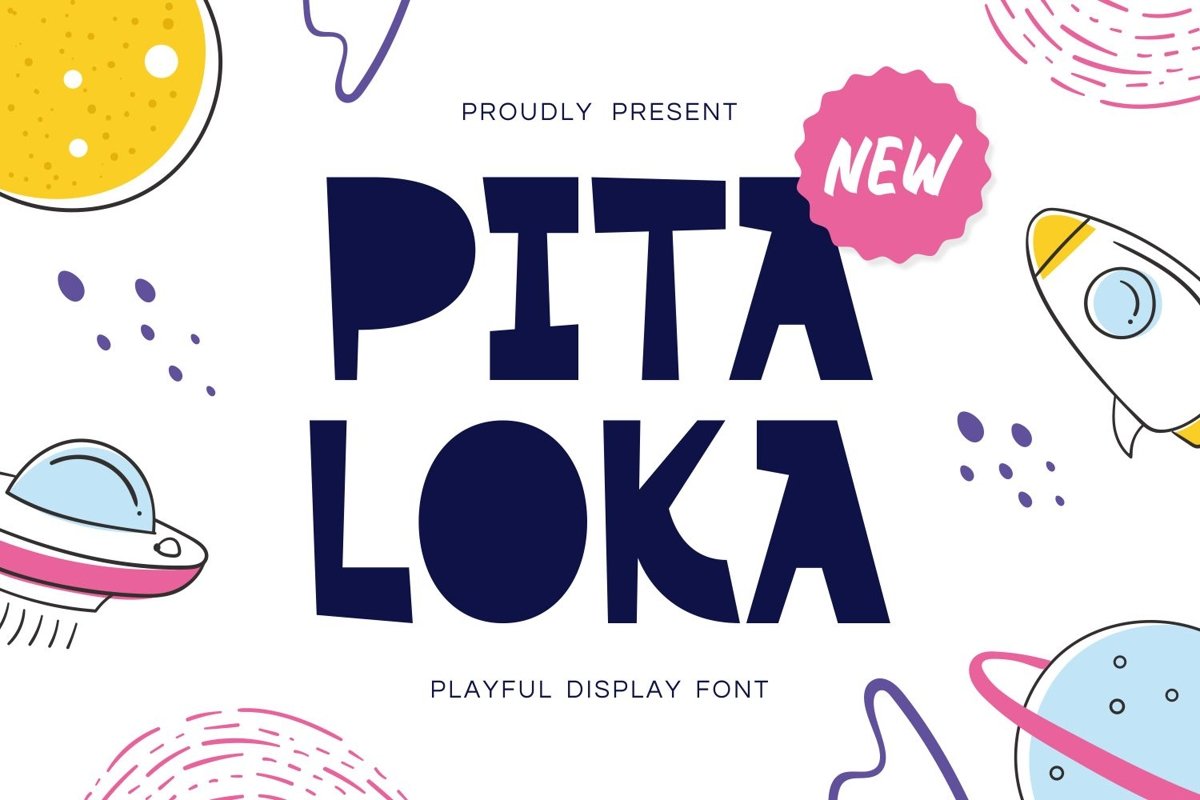
Pitaloka is powerful sans serif display come with playful themes. It matches applies in some designs such as the logotype, brand, packaging, quotes, poster, shirt, book, badge and more custom design. The features uppercase, lowercase, numeral, punctuation & symbol, multilingual support.
Pitaloka